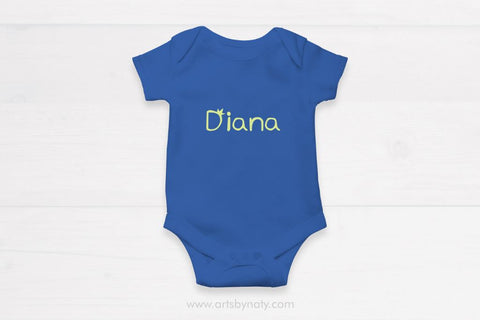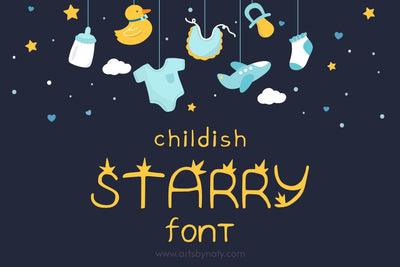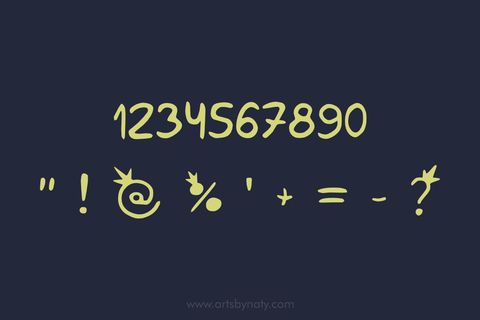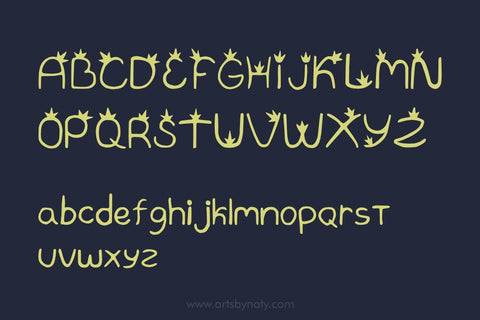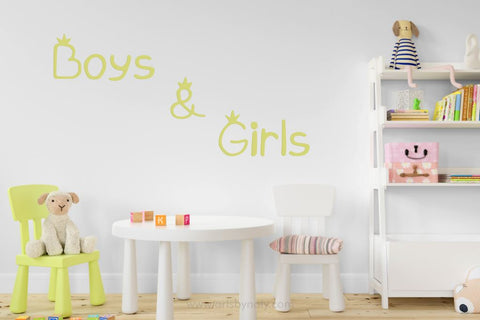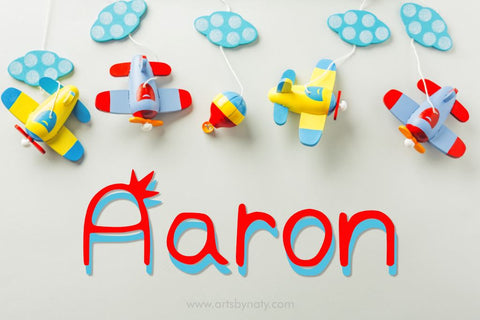
Childish Starry Handwritten Font.
A cute handwritten font with half-stars on all the capital letters. A simple and fun font to use in many projects such as: nursery, mugs, books, cards, clothes, wallpapers, and many more. Grab yours now and have fun!